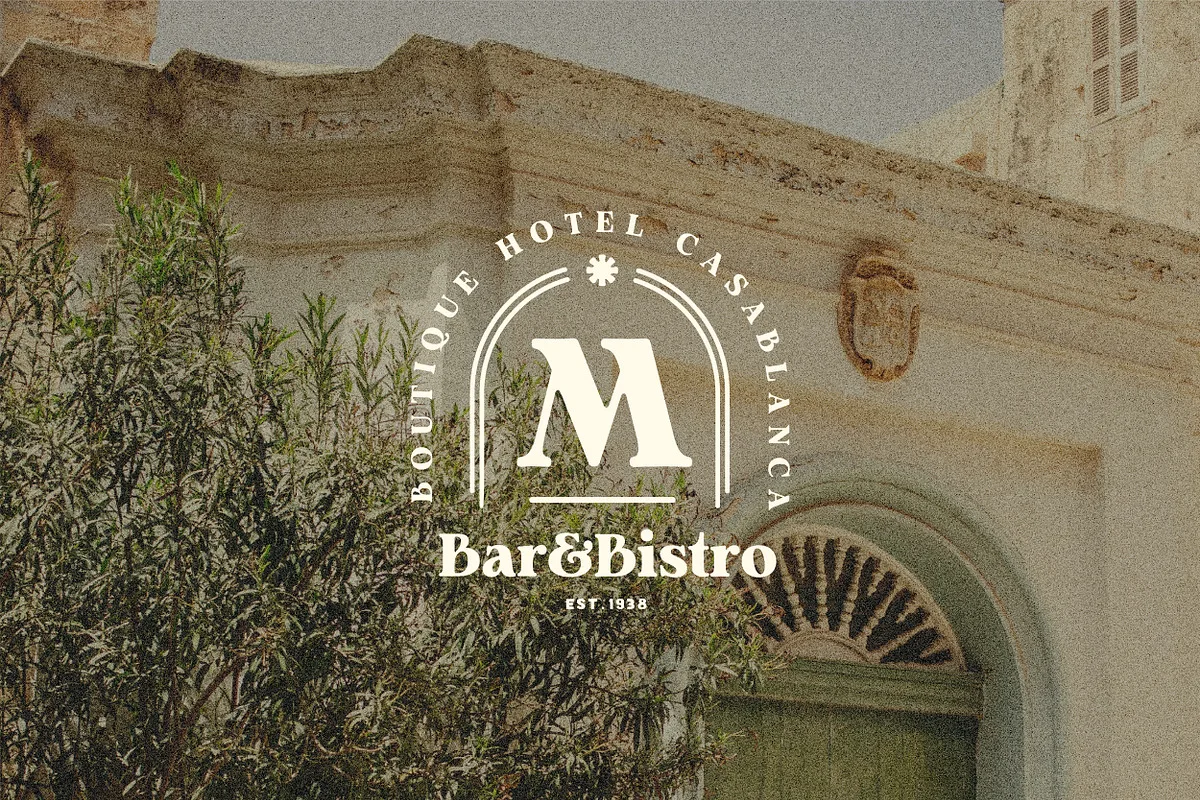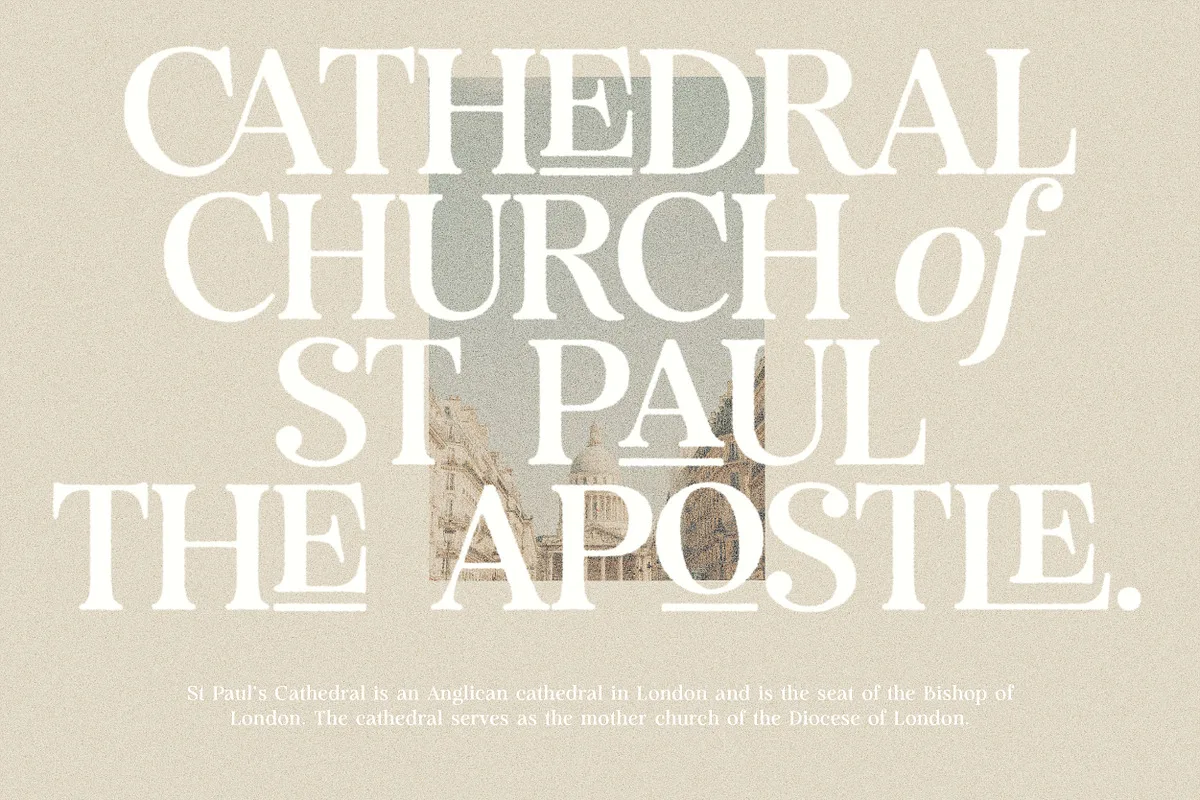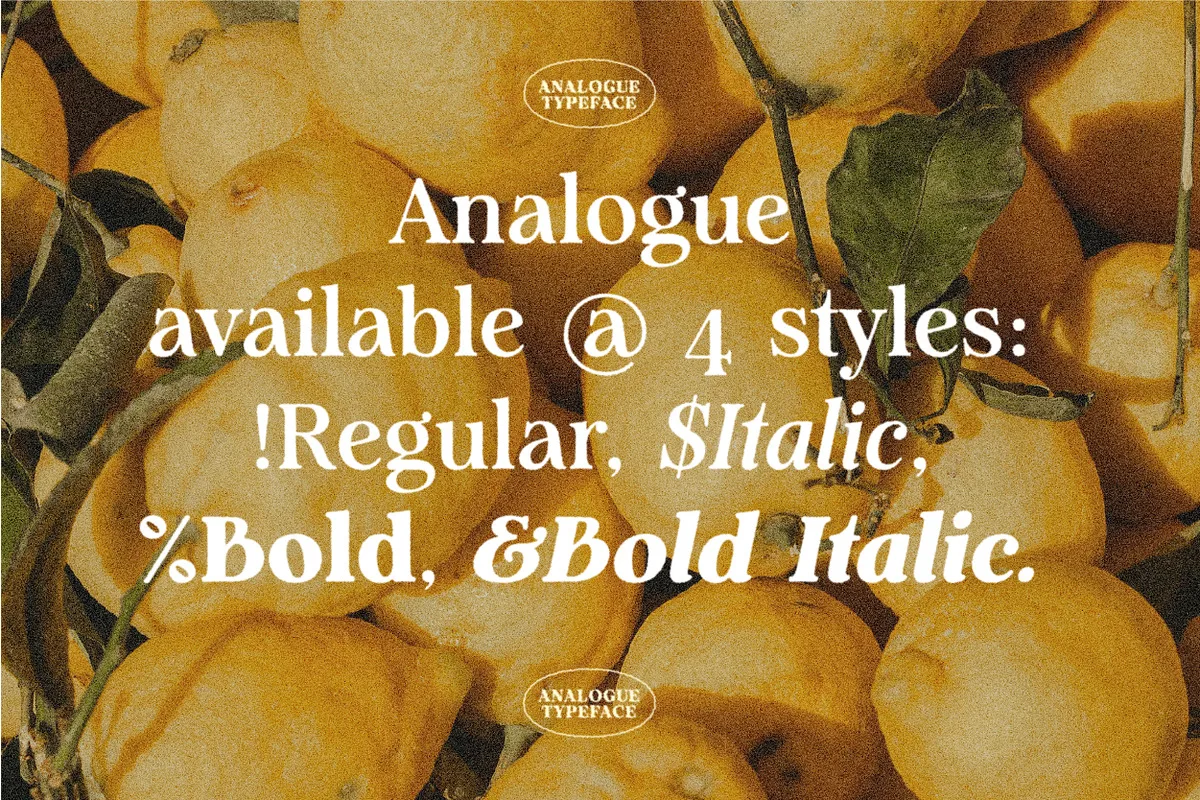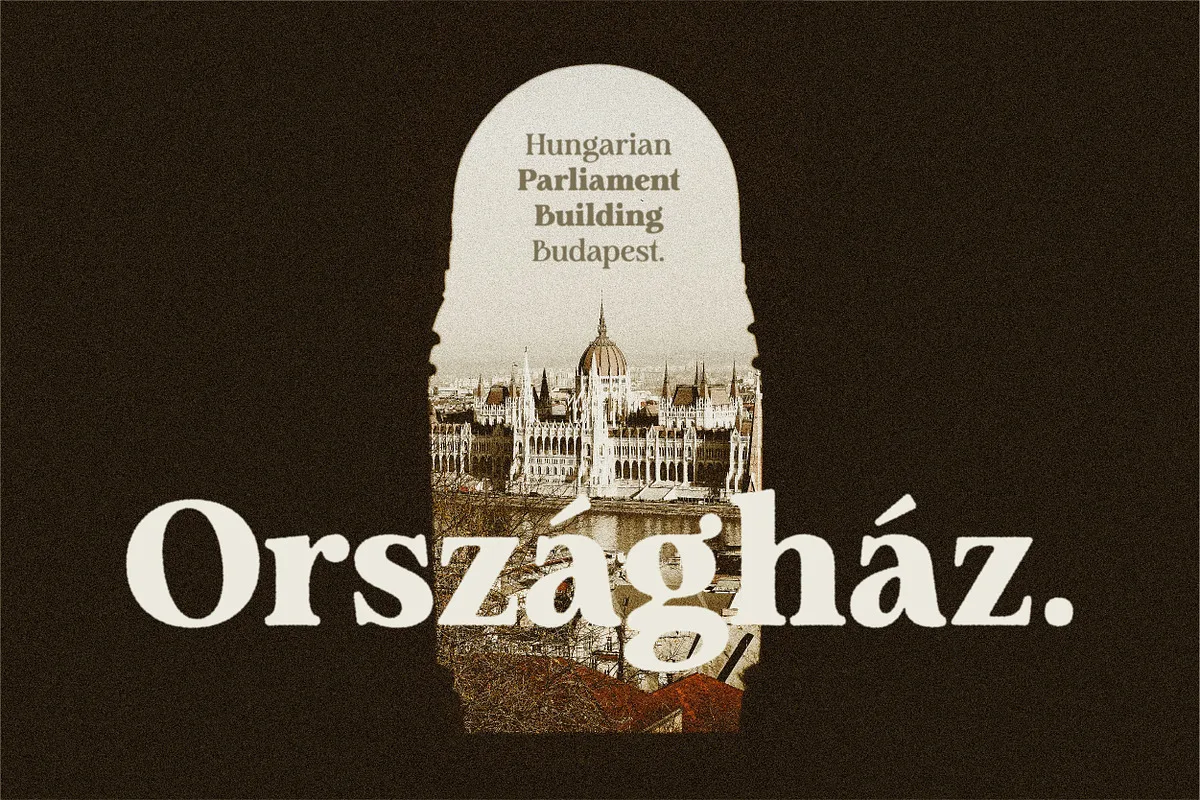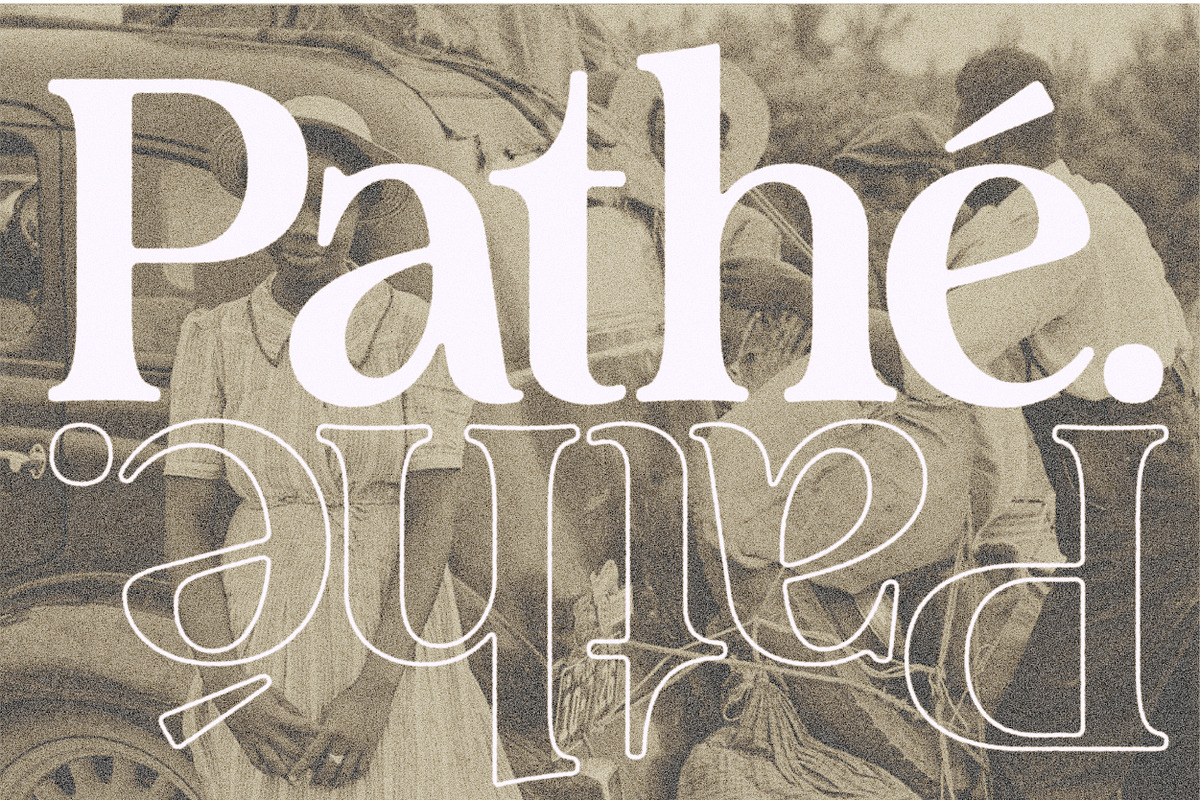
Analogue is a retro serif font with a humanist touch, meaning it incorporates characteristics inspired by handwritten letterforms. It’s known for its good readability and is suitable for both headings and body text. This font is ideal for creating designs with a nostalgic yet elegant feel, perfect for logos, packaging, editorial work, and more.